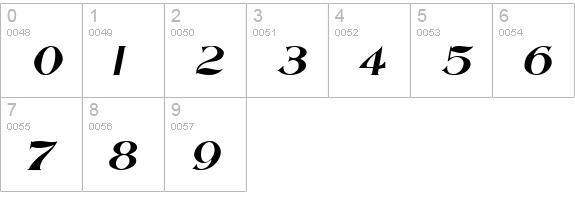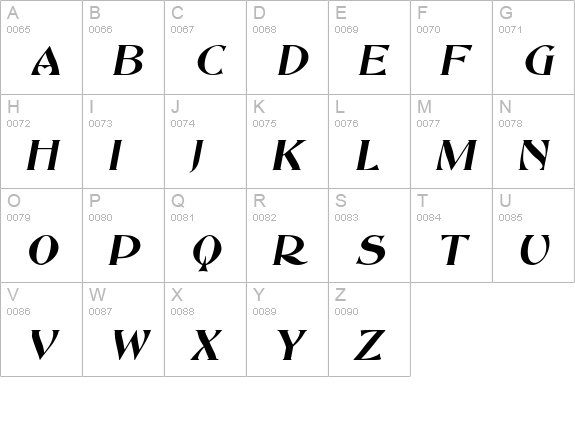
Saccule Oblique Font Details
Saccule Oblique is a distinctive, italic variant in the Saccule typeface family \xE2\x80\x94 well suited to design and typography projects.
Introducing Saccule Oblique, a stunningly unique font that effortlessly blends elegance with a touch of edginess. Designed to captivate and inspire, this font is a true testament to the power of creativity and innovation. Saccule Oblique boasts a sleek and modern design, with its slanted and slightly italicized letters adding a dynamic flair to any project. Each character is meticulously crafted, resulting in a harmonious balance between sharp angles and smooth curves. This font is perfect for those seeking a bold and contemporary look that demands attention. Whether you're designing logos, branding materials, posters, or websites, Saccule Oblique will undoubtedly make a lasting impression. Its versatility allows it to be used in a variety of contexts, from fashion to technology, ensuring that your message is conveyed with style and sophistication. And the best part? Saccule Oblique is available to download for free at FontsMarket.com. We believe that creativity should be accessible to all, and that's why we are thrilled to offer this exceptional font without any cost. With just a few clicks, you can elevate your designs to new heights, all without breaking the bank. So why wait? Embrace the beauty of Saccule Oblique and unleash your imagination. Download this remarkable font today and see how it can transform your projects into works of art. Get ready to make a statement that will leave a lasting impression on your audience, all with the help of this stunning and freely available font.